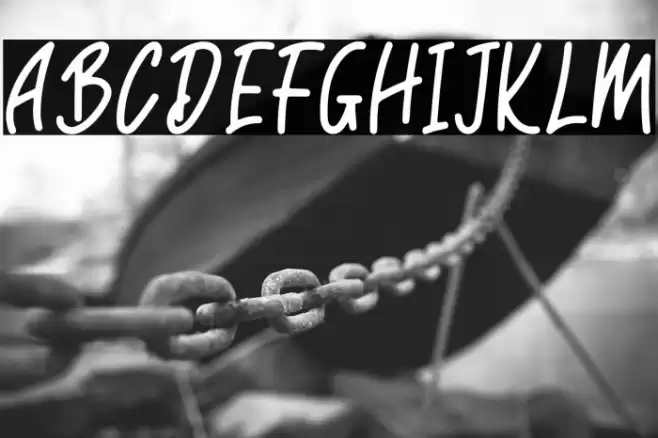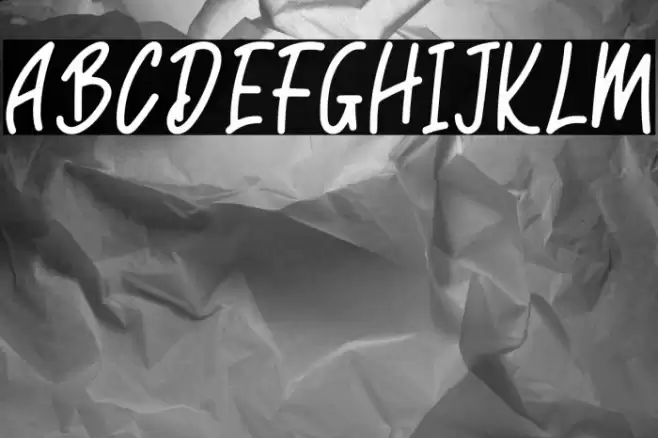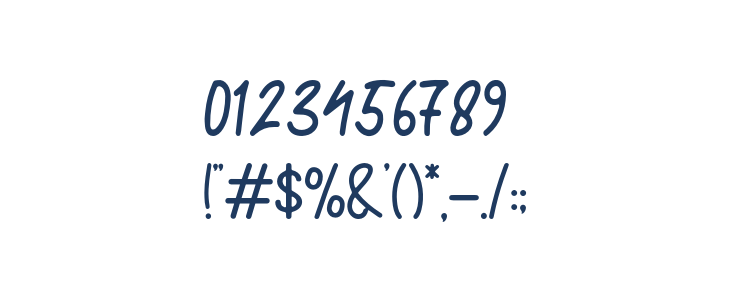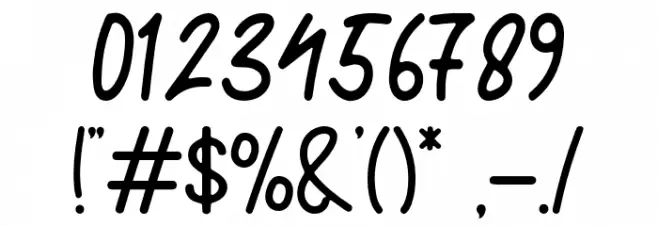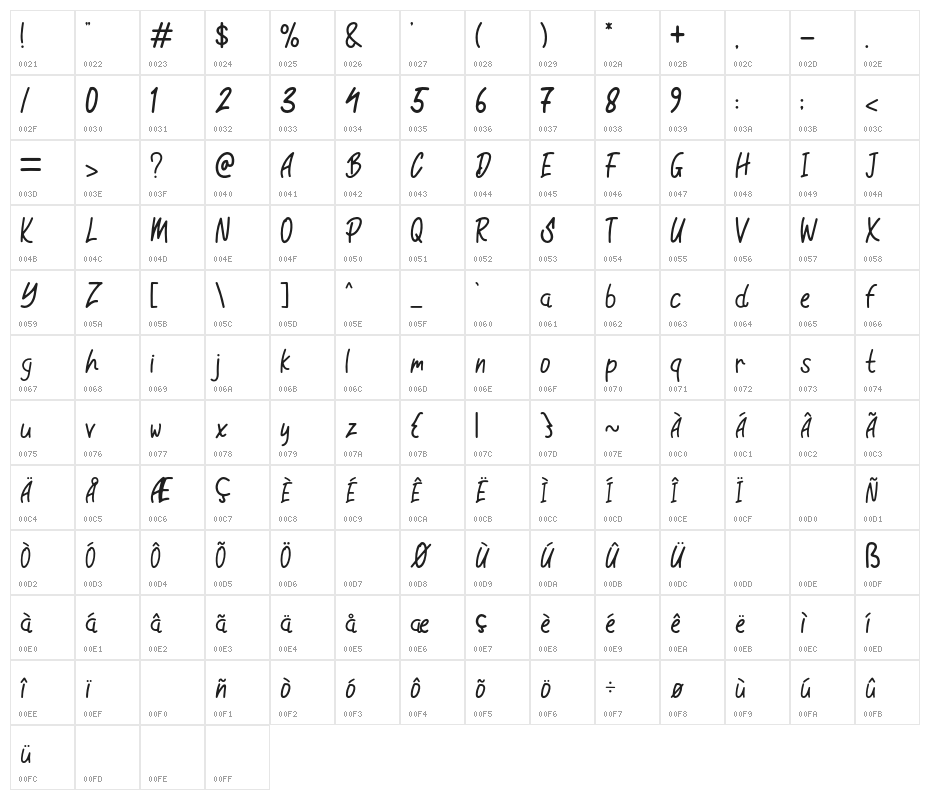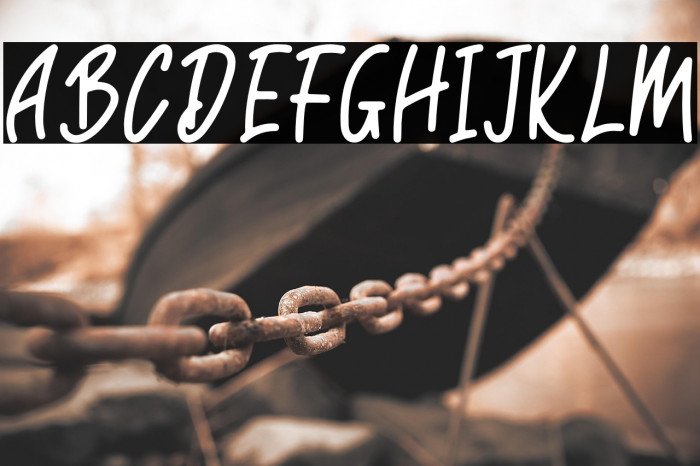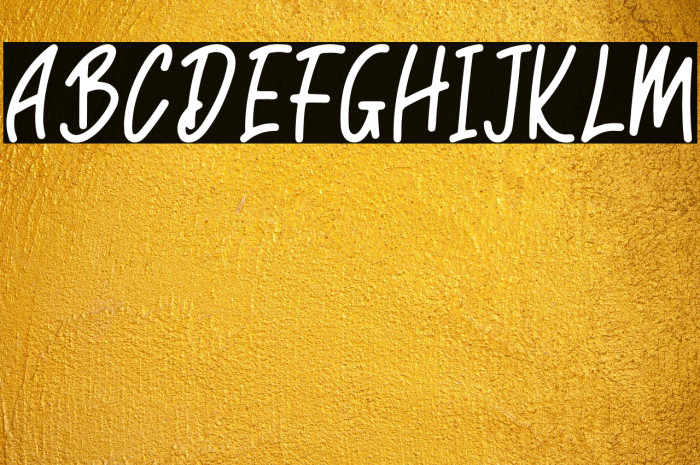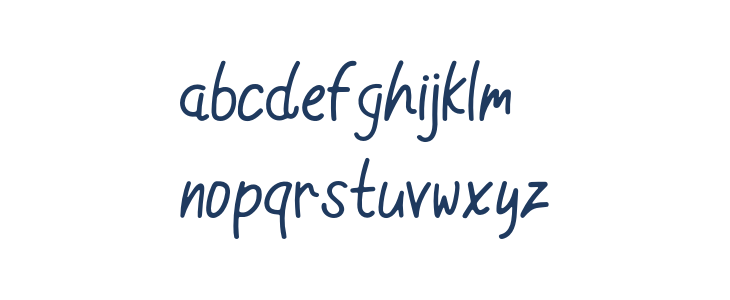
Water Seven Font
Water Seven Description
This font features a playful and dynamic handwritten style, characterized by its fluid and slightly irregular strokes. The uppercase letters are bold and expressive, with a slight slant that adds to the casual feel. The lowercase letters maintain a consistent flow, complementing the uppercase with their rounded and approachable forms. Numbers and special characters are crafted with the same lively spirit, ensuring a cohesive look across all elements. The overall design is informal yet stylish, making it suitable for projects that require a personal touch.
A playful, handwritten font with dynamic and fluid strokes from Uncategorized fonts.
- Font: Water Seven
- Proposed Projects: Ideal for greeting cards, invitations, personal branding, and creative projects that benefit from a casual and friendly aesthetic.
- Overall Style: Casual
- Use Case: Headlines, Logos, Invitations